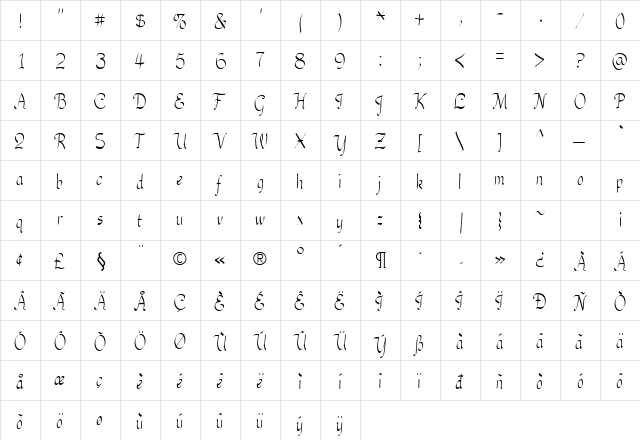
Rosary Regular
Design Context for Rosary Typeface
Rosary takes a measured approach to typography — its balanced proportions and neutral character make it a reliable workhorse for both digital and print work.